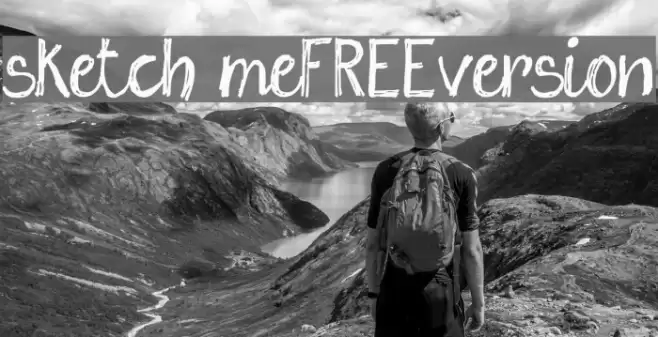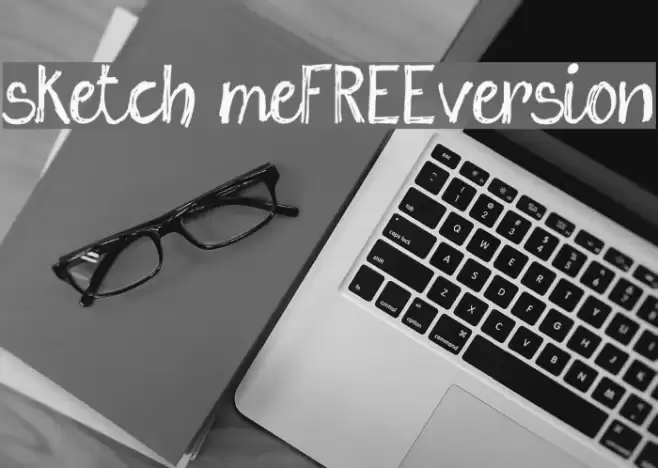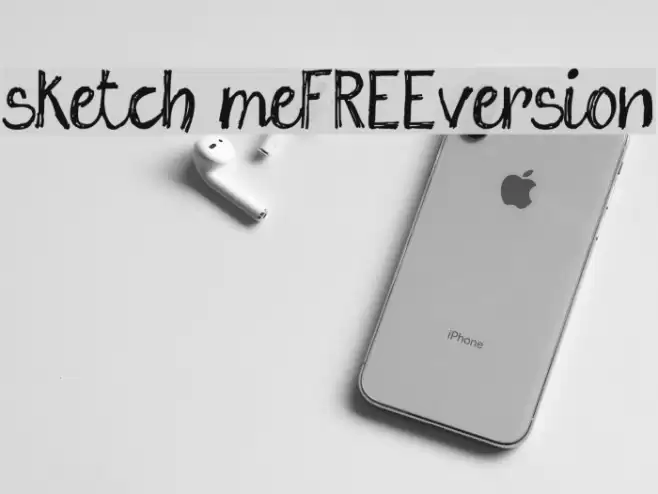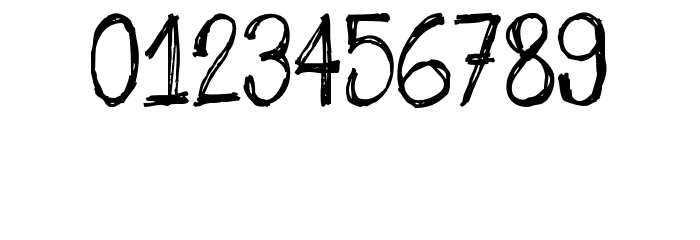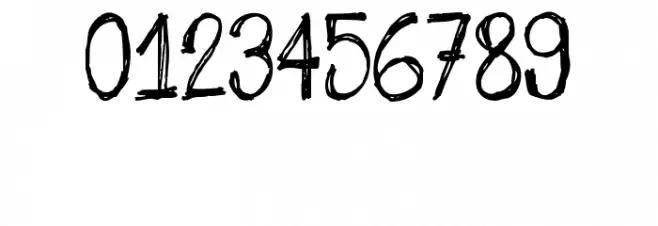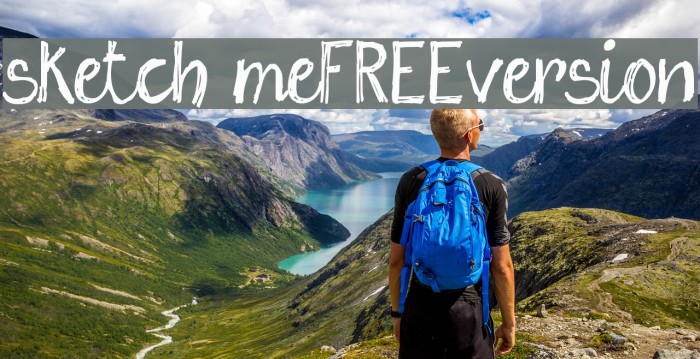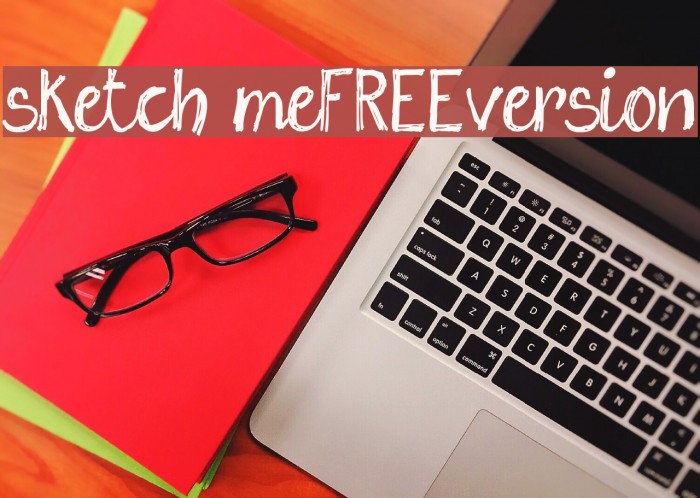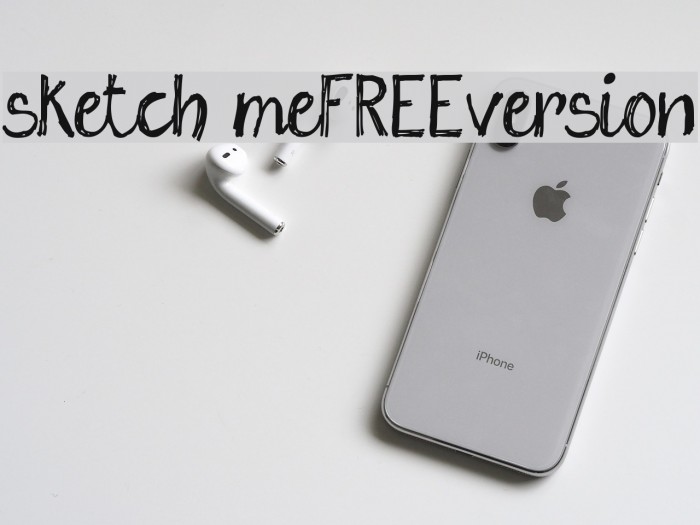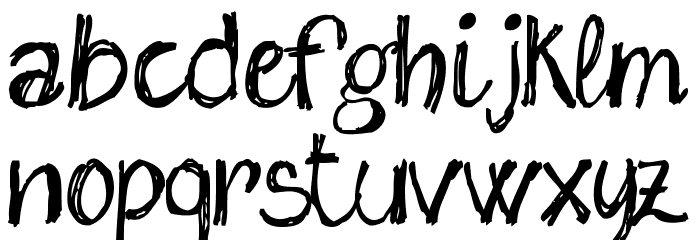
sketch me_FREE-version Font
sketch me_FREE-version Description
This font features a playful, hand-drawn style with a sketch-like appearance. Each character is uniquely crafted with uneven strokes, giving it a casual and artistic feel. The uppercase letters are bold and prominent, while the lowercase letters maintain a consistent style with slightly more fluidity. The numbers and special characters follow the same sketchy aesthetic, making the font suitable for creative projects. The overall design is informal and expressive, perfect for adding a personal touch to any design.
A playful, hand-drawn font with a sketch-like appearance from Kids fonts.